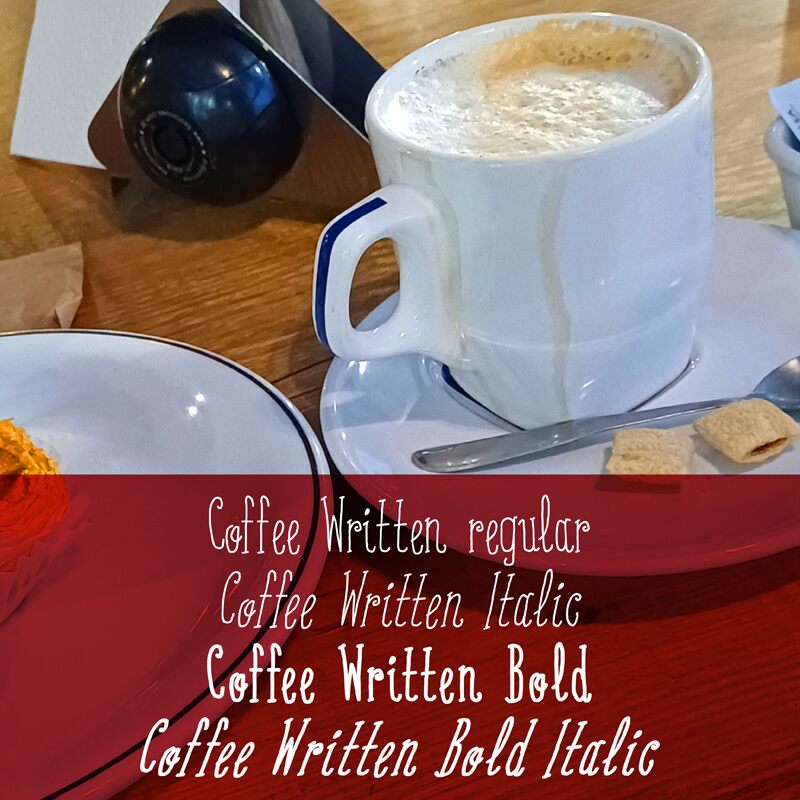
Coffee Written Bold
Coffee Written Bold by Galdino Otten is a free handwritten font shaped by tall upright strokes and loose looped curls that keep the lettering lively from one character to the next. The repeated hook-like tops and rounded turns give it a casual cafe-note rhythm, so it feels more like quick marker lettering than polished calligraphy.
That character makes it a natural choice for coffee shop menus, chalkboard-style signs, product labels, packaging, and social media graphics where a friendly human touch matters. It can also anchor short quotes or greeting cards, especially when those springy loops and narrow vertical forms need to carry the mood without extra decoration.